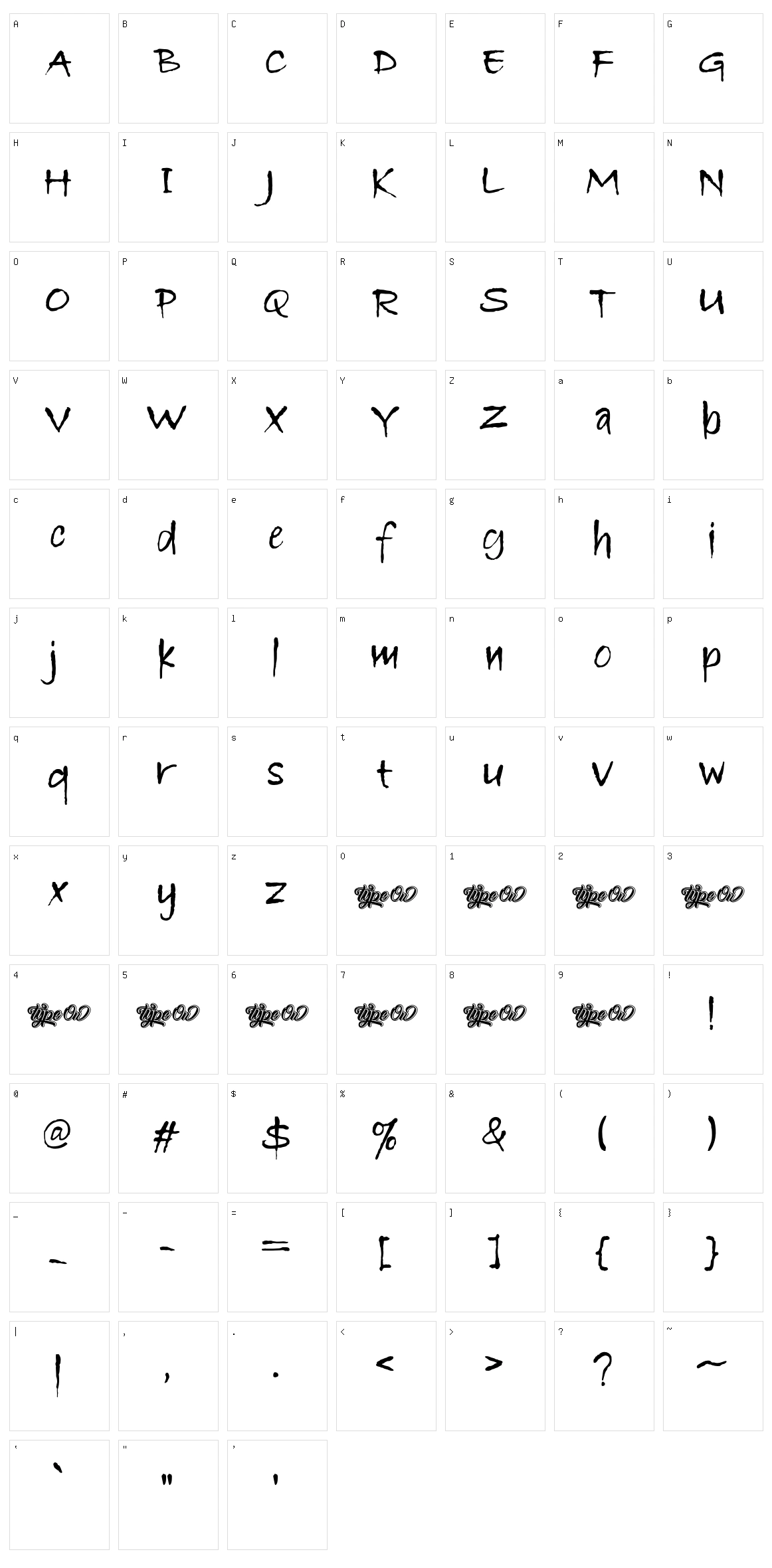
The free font Red Smoke is carefully designed by Type on Studio, showcasing a thoughtful balance of creativity and usability and falls under the Horror font style. When you download the ZIP file, it contains only 32.33 KB of font files, making it lightweight and quick to download. Please review the license details below to understand permitted usage and distribution rights. If license information is not available, we recommend using this font for personal projects only or contacting the author directly for commercial usage permissions.